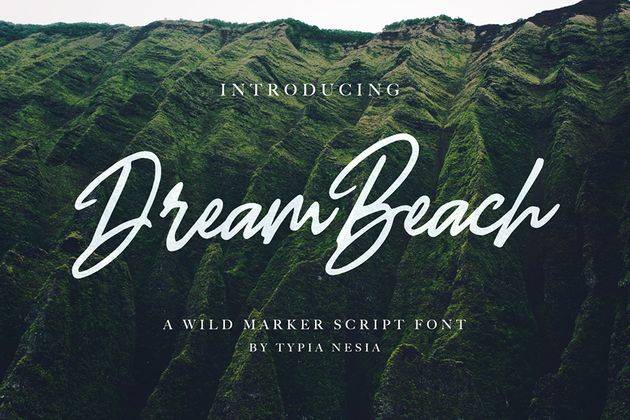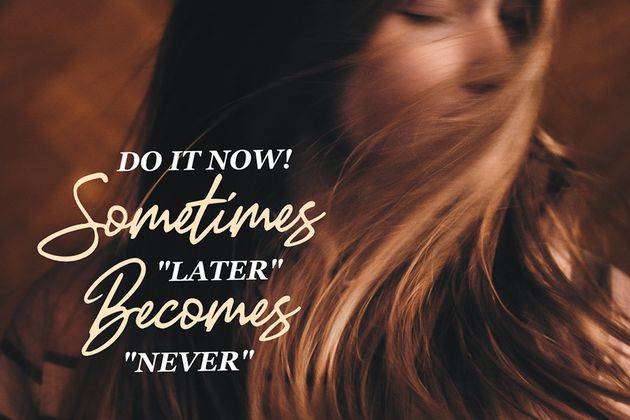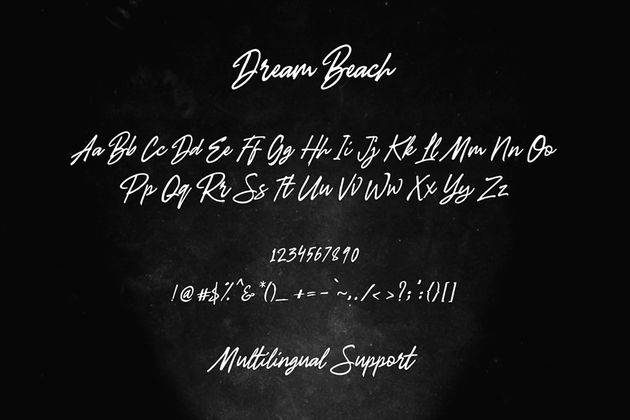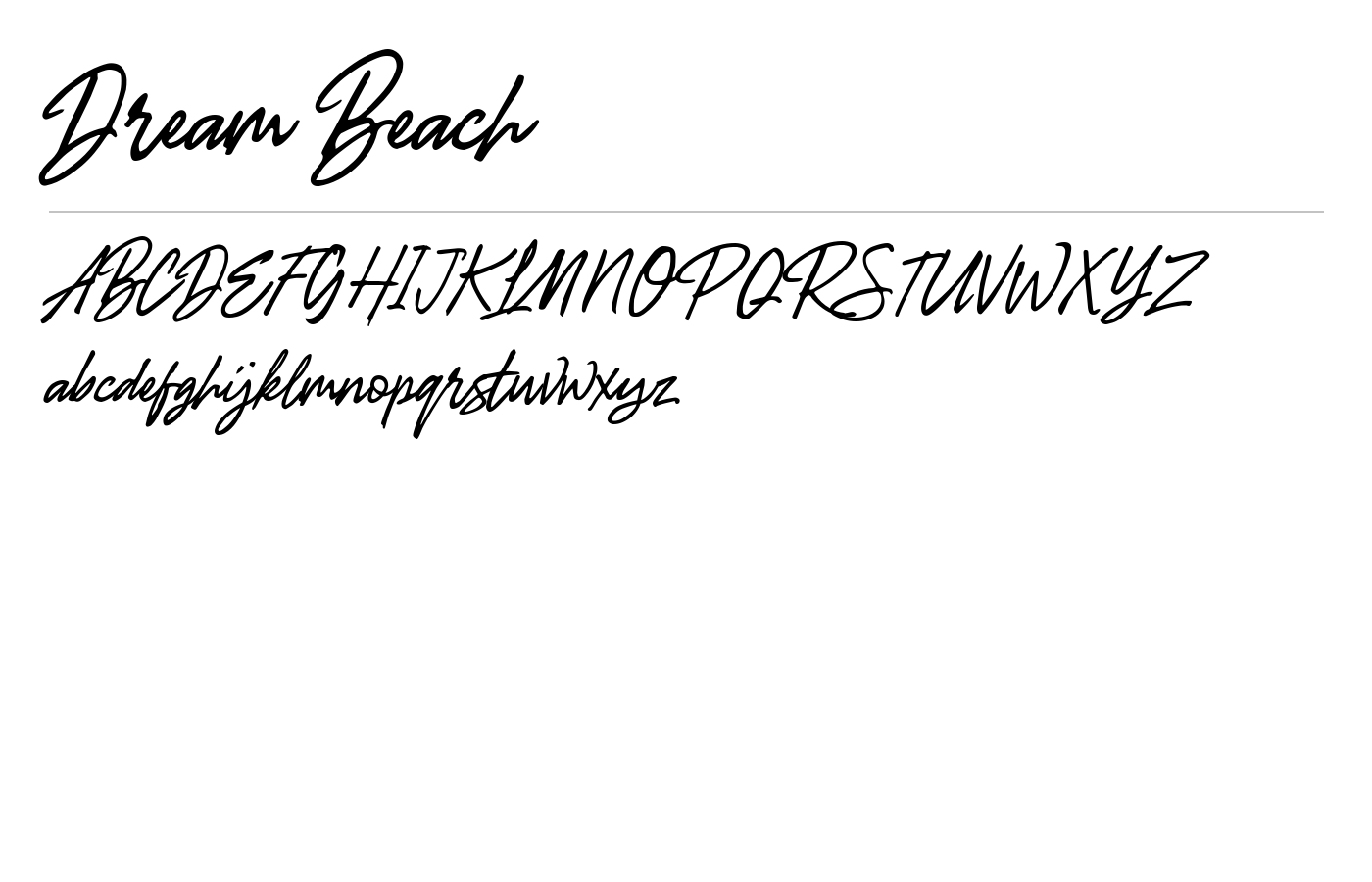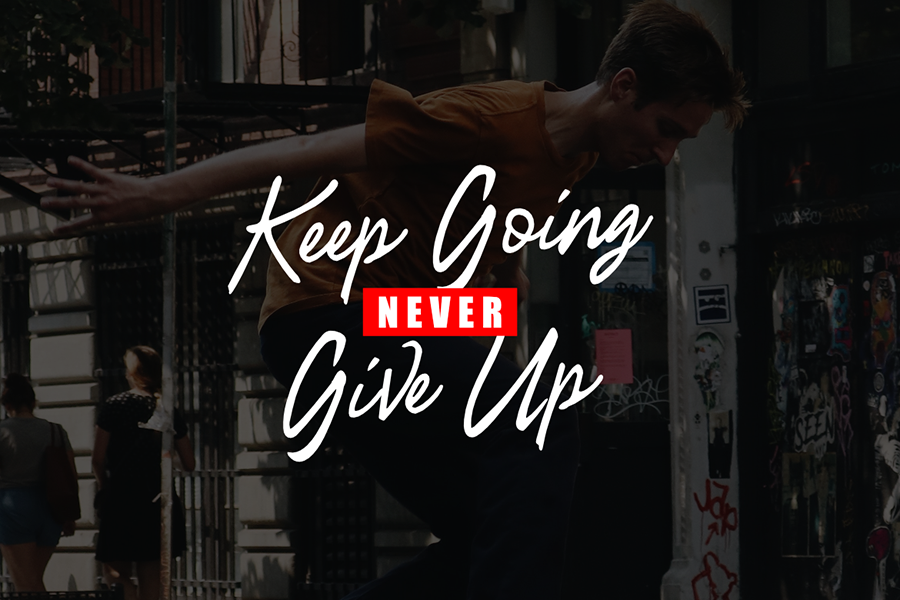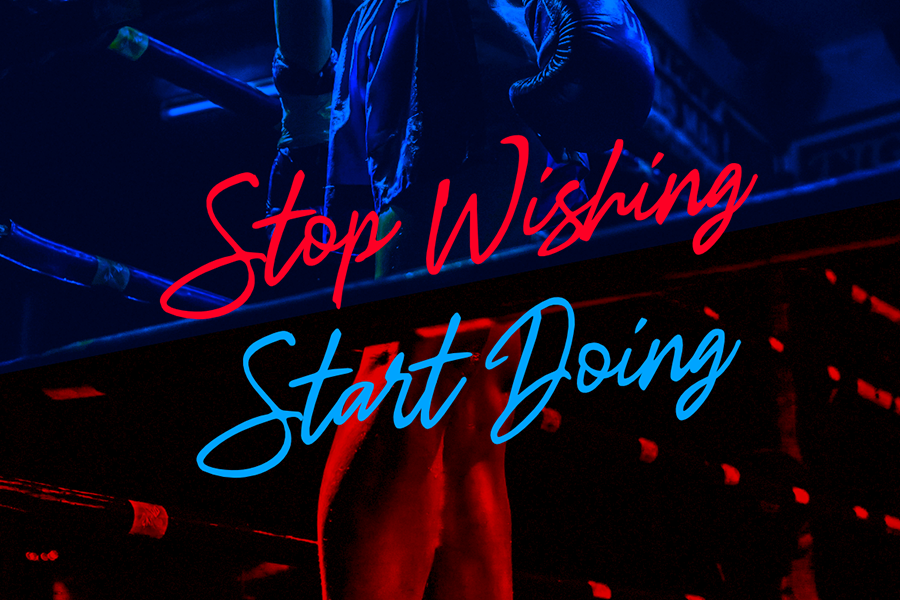
Dream Beach Script Demo is a lively and elegant handwritten script font with fluid, natural strokes that convey a casual yet stylish feel. Its smooth, slightly slanted letterforms with medium contrast and connected characters make it perfect for creative logos, invitations, and branding that seek a friendly, personal touch. This font works beautifully in designs that want to evoke warmth and approachability while maintaining a refined and modern look.
Dream Beach Script Demo
About Dream Beach Script Demo
| Font family | Dream Beach Script Demo |
| Release date | 2019-02-04 |
| Designer | Dimas & Arief |